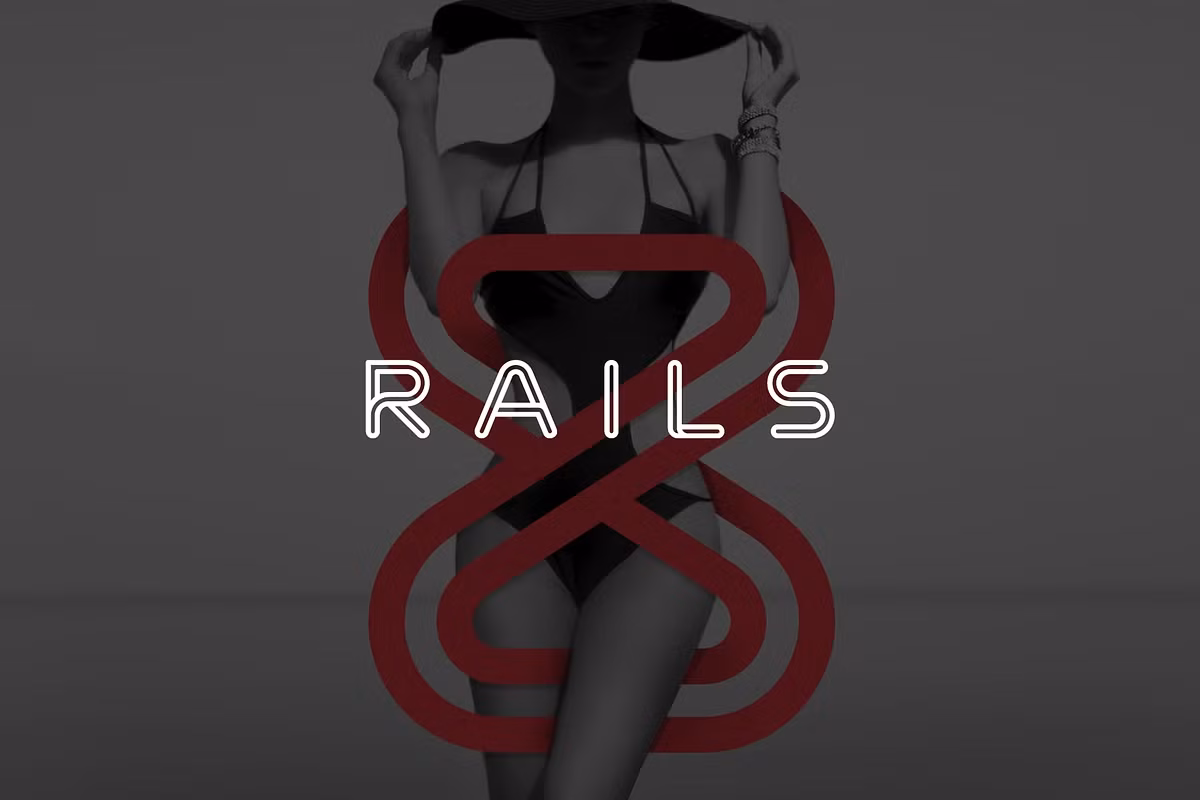
Please note, to use this font for commercial purposes, you must purchase the full version. RAILS is a bold and versatile display font that comes with 4 unique styles, making it perfect for a variety of design projects. Whether you're working on logos, branding, posters, or creative campaigns, RAILS offers flexibility and impact. The four styles allow you to experiment with different looks, making it an ideal choice for modern, dynamic designs. Whether you're designing for a contemporary brand, a high-energy event, or a creative venture, RAILS adds strength and style to your work. Test it out and enjoy free download access for personal use. Experience the bold, adaptable design of RAILS | Display Font + 4 Styles Free Download before purchasing the commercial license. Add a striking, versatile touch to your designs with RAILS.